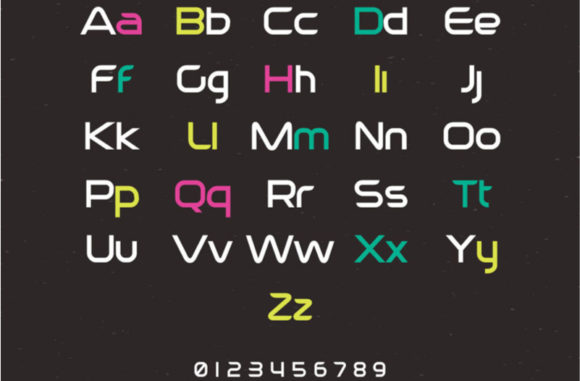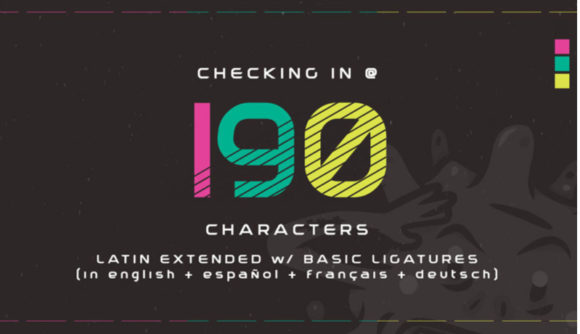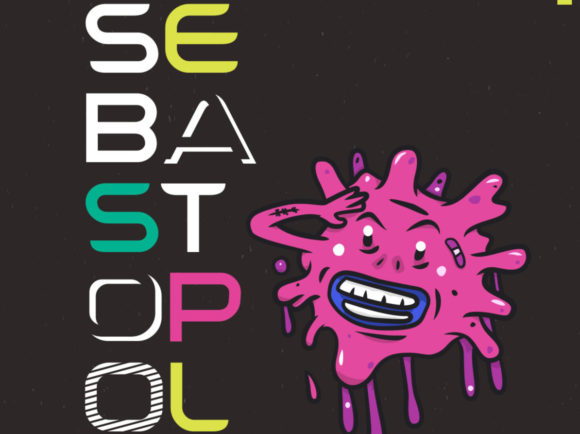
Sebastopol
About Sebastopol Font
The Sebastopol is a sans-serif powerhouse that is designed to emulate spaceship titling from popular movies and video games such as Mass Effect, Halo, and the Alien series. Curves, sharp edges, and sleek geometry give Sebastopol a special out of this world feel that is still grounded enough to make it easily accessible for any number of projects. The possibilites are infinite!